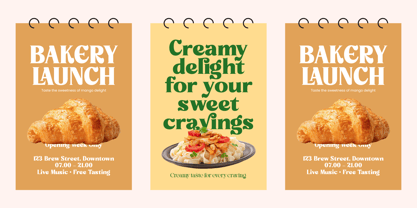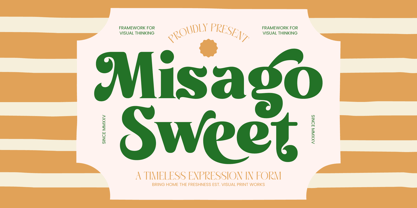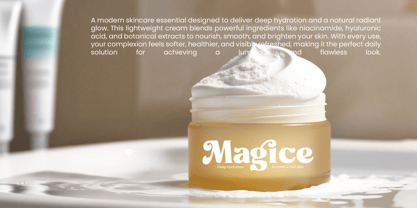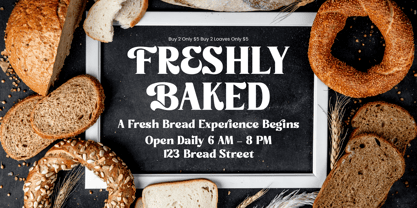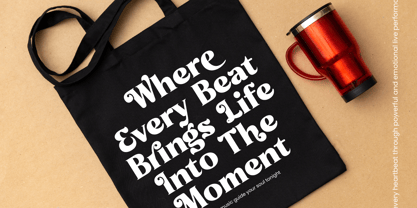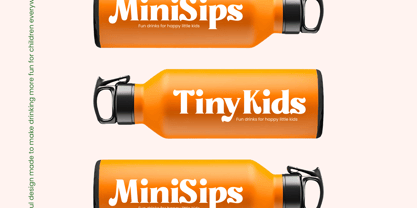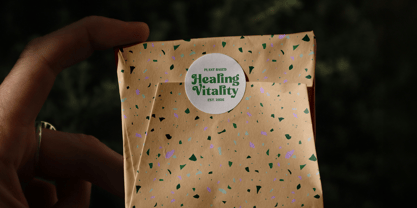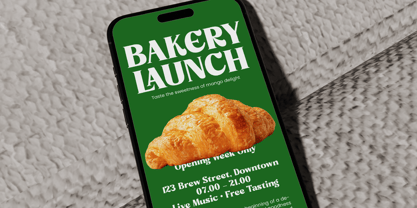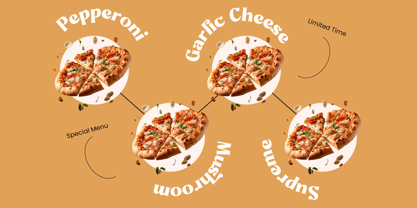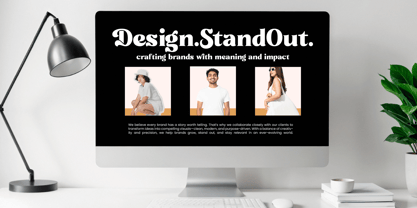
Misago Sweet
by Timelesstype Studio
The Misago Sweet Font Family was designed by Heru Utama Putra and published by Timelesstype Studio. Misago Sweet contains 2 styles and family package options.
Misago Sweet - Retro Serif Vintage Display Font. This bold serif typeface perfectly balances nostalgic charm with modern refinement, making it a standout choice for high-impact visual storytelling. Its high-contrast strokes and fluid curves evoke a sense of vintage luxury, ensuring your headlines command immediate attention while maintaining a polished professional edge. Unlock unparalleled creative flexibility with a comprehensive glyph set that includes 20 ligatures and 80 alternates for custom character styling. The organic flow of Misago Sweet - Retro Serif Vintage Display Font allows designers to craft bespoke typography effortlessly, providing a premium aesthetic for any creative project. With its extensive multilingual support, Misago Sweet - Retro Serif Vintage Display Font adapts seamlessly across global markets, making it incredibly versatile for international projects.